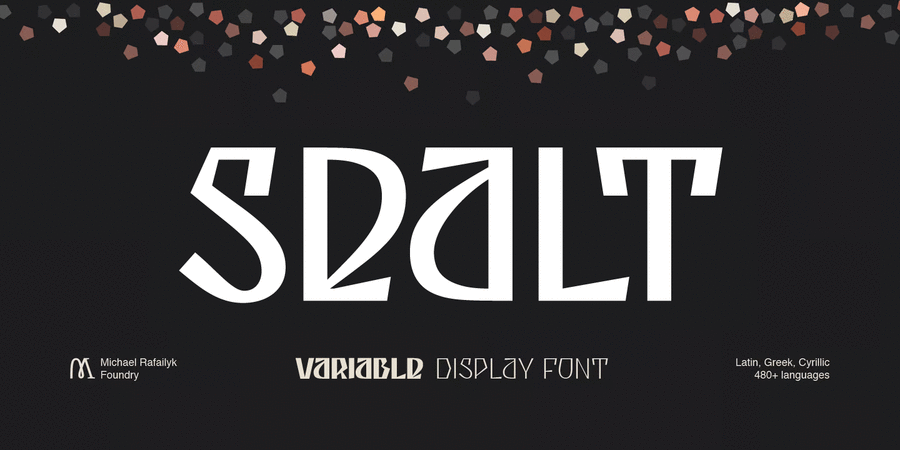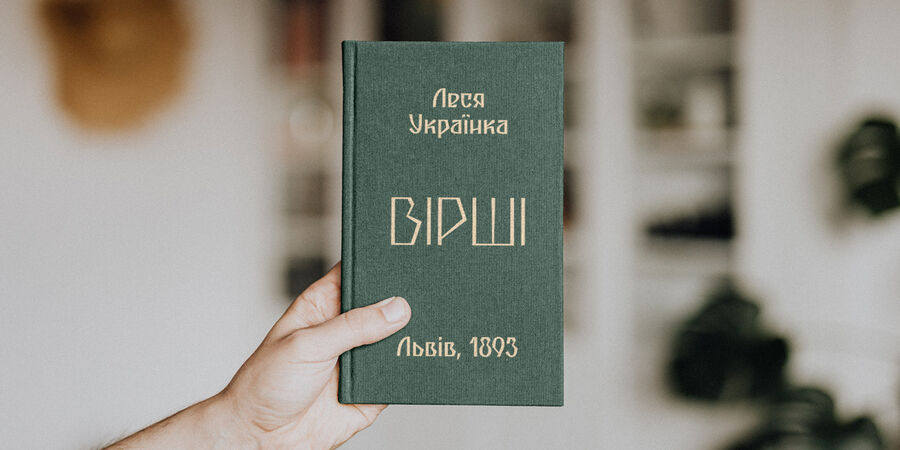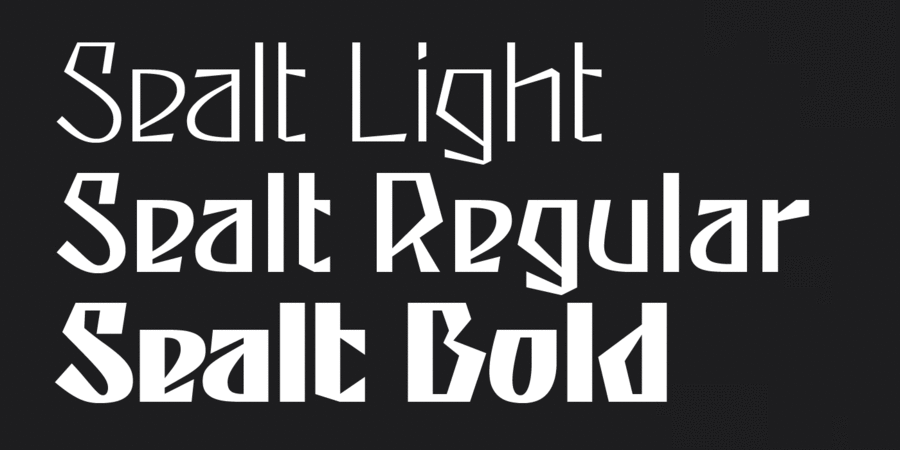
About SealtSealt Typeface is inspired by the oldest saltworks in Eastern Europe, founded in 1390 in Drohobych. Sealt means salt in Old English, so most letters are rough and sharp like salt crystals and seem to be carved out of the rock.
Variable font: Sealt VF has weight axis and includes hundreds of weights ranging from Light (300) to Bold (700), so feel free to choose the most accurate weight that you need, using a slider.
Localized Forms: 47 character substitutions for Azeri, Bulgarian, Catalan, Dutch, German, Kazakh, Moldavian, Polish, Romanian, Tatar, Turkish.
Ordinals: adehnorst.
Superscript, Subscript, Numerator, Denominator: 0123456789.
Fractions: ¼½¾⅐⅑⅒⅓⅔⅕⅖⅗⅘⅙⅚⅛⅜⅝⅞⅟ (precomposed). Any other fractions (even those typed through a slash) will also be displayed correctly, with the automatic replacement to Numerator + fraction + Denominator.
Slashed Zero: All 0 figures, including Lining, Superscript, Subscript, Numerator, Denominator, and Fractions.
Contextual Alternates: ΆΈΉΊΌΎΏ. Greek uppercase accented characters lose their tonos accent and retain only dieresis in All Caps mode. Turned on by default. If you need tonos accents in All Caps then turn off Contextual Alternates (calt) feature.
Standard Ligatures: OO TT tt fi. Turned on by default.
Scripts: Latin, Greek, Cyrillic.
The typeface was designed by Michael Rafailyk in 2021-2023.